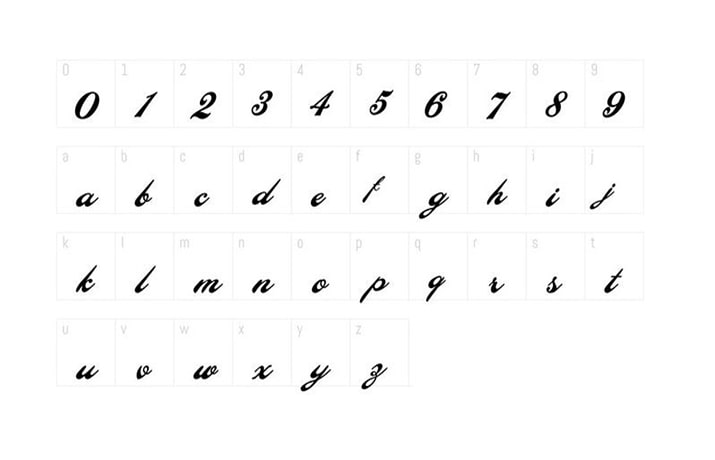
Today we are Introducing a logo font called Atlanta Braves Font! It is a logo typeface that we first saw on the Atlanta Braves.
That’s why different designers want to work with its title font because it’s really attractive. Most likely the designer used the LHF Ballpark Script font for their titles.
| Font Name: | LHF Ballpark Script Font Family |
| Style: | Script, Display, Typeface |
| Font Designer: | Thomas Kennedy |
You can use this typeface for various planning purposes. Like creating headlines, logo designing, typographic formation, writing short paragraphs, photography, watermarks, printing objects, magazine covers, etc. Moreover, it is a good method to use for fashion industries.
LHF Ballpark Script typeface was designed by Thomas Kennedy and shared via Letterhead Fonts Foundry. It comes with only one regular weight along with 58 swashes.